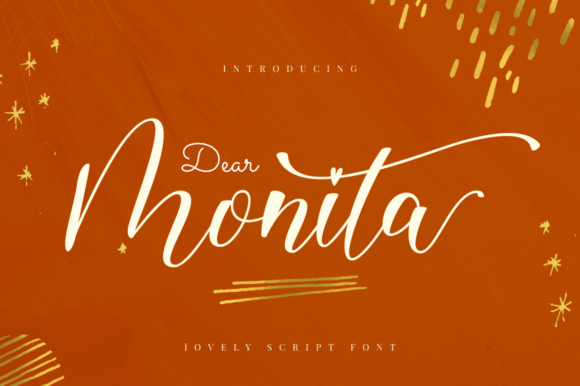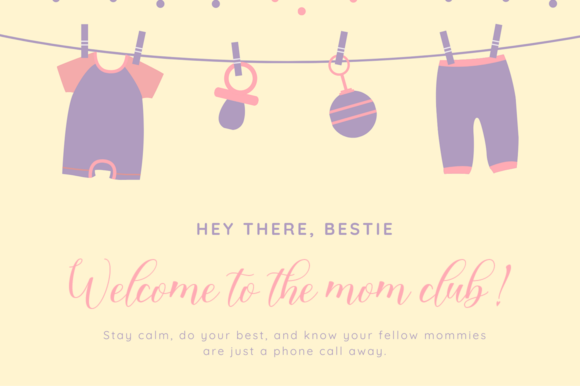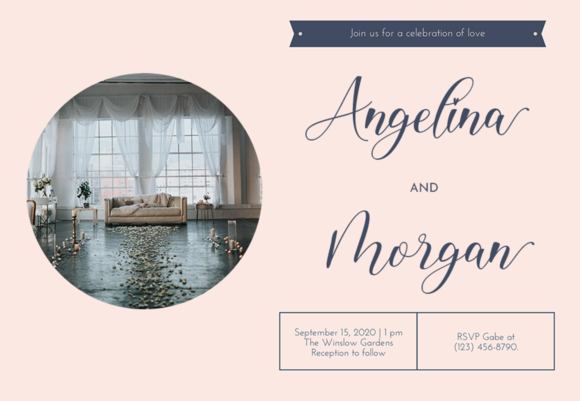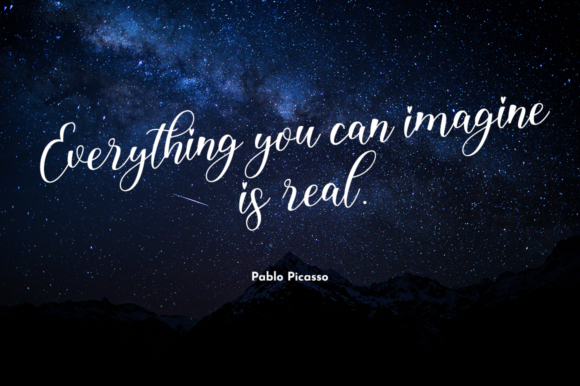
About Dear Monita Font
Dear Monita is a sweet and cute script font. Its flexibility and neat style will brighten up each of your designs. Have fun with this cool font and explore its endless variations.This font is PUA encoded which means you can access all of the glyphs and swashes with ease!